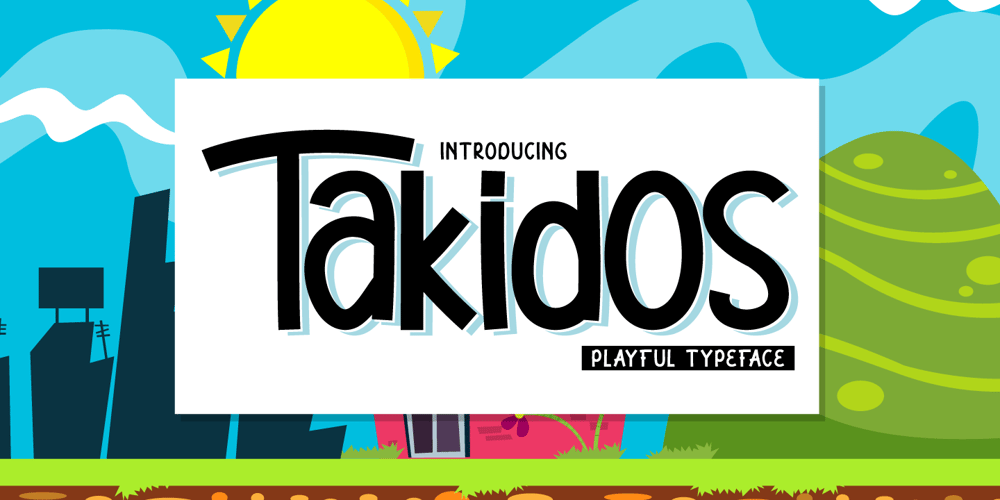
Takidos Font Family was designed by Prio Nurokhim Aji and published by Prioritype. Takidos contains 1 styles and family package options. A bold and unique font is here to accompany your project, it can be applied to t-shirts, logos, video covers, book covers, food labels, and much more. See some of the previews above for an illustration.Features:-Uppercase-Lowercase-Numeral-Punctuation-Multilingual-AlternateThanks.